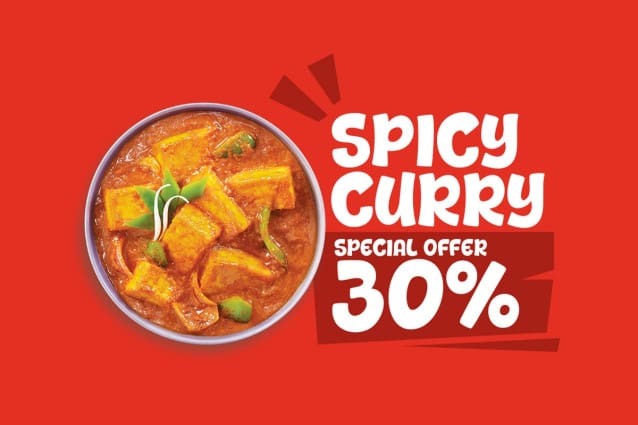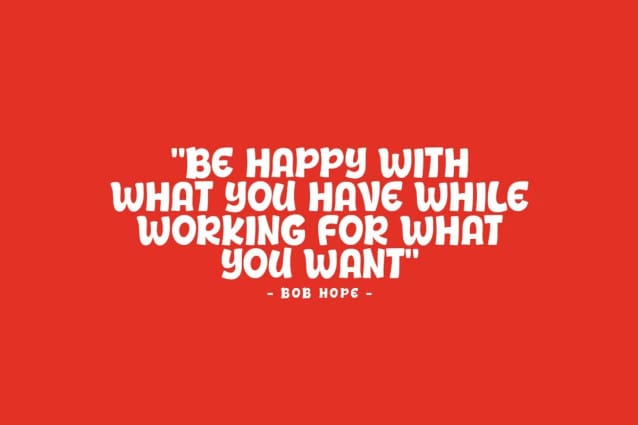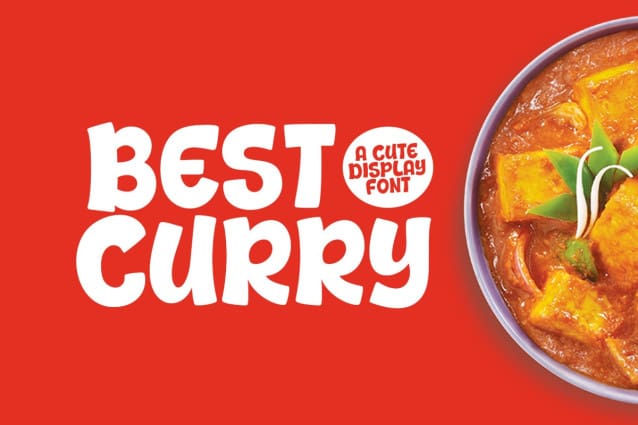
Best Curry Font
Best Curry font a fun display typeface with cheerful theme for your fun project. BestCurry font suitable for logo, branding, greeting card, poster and any design that you create.